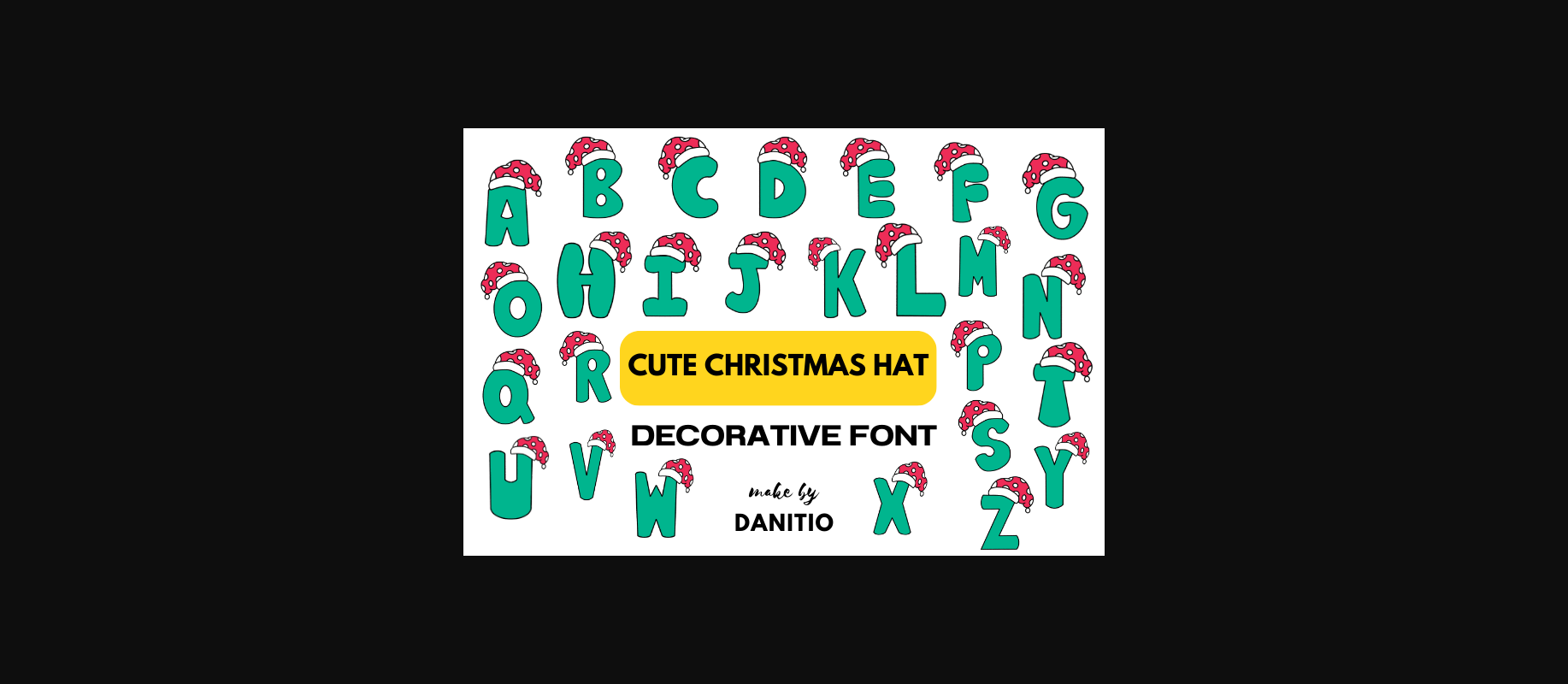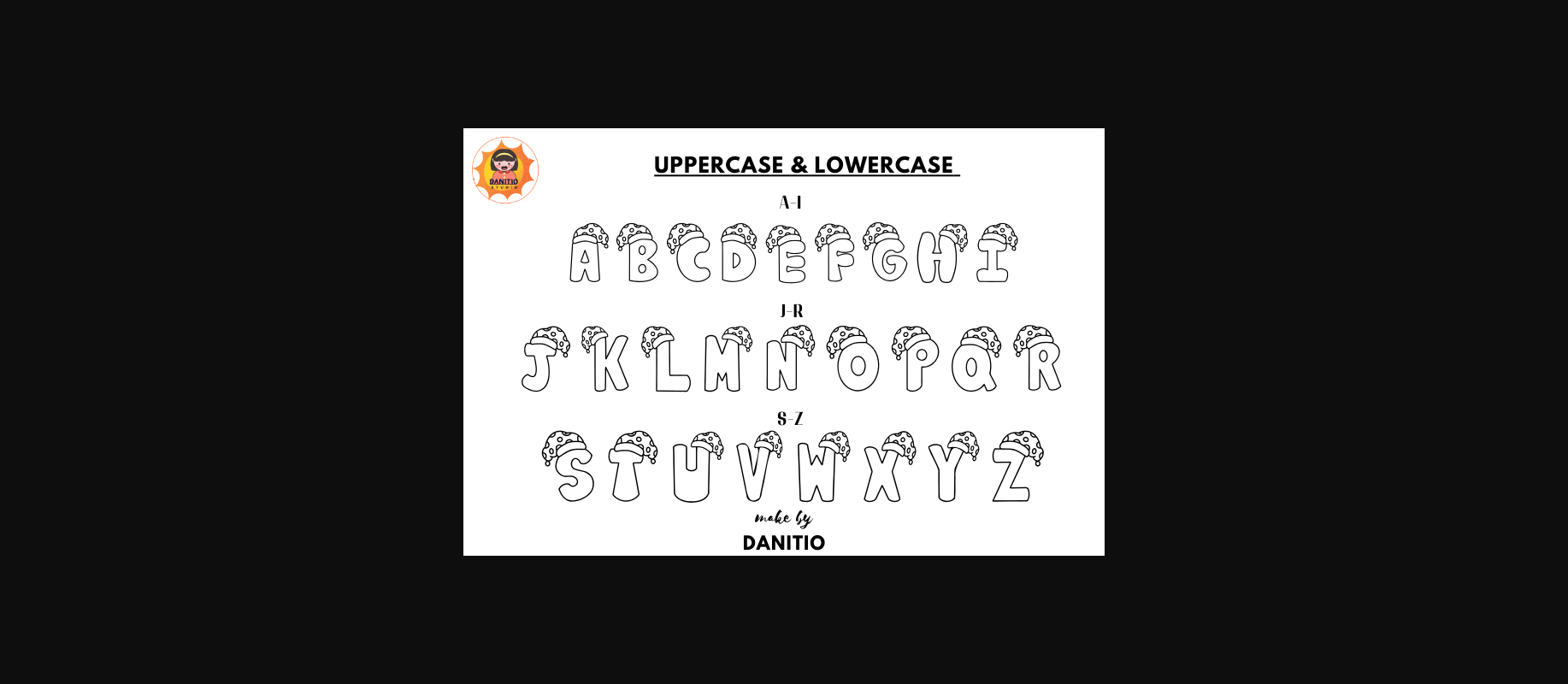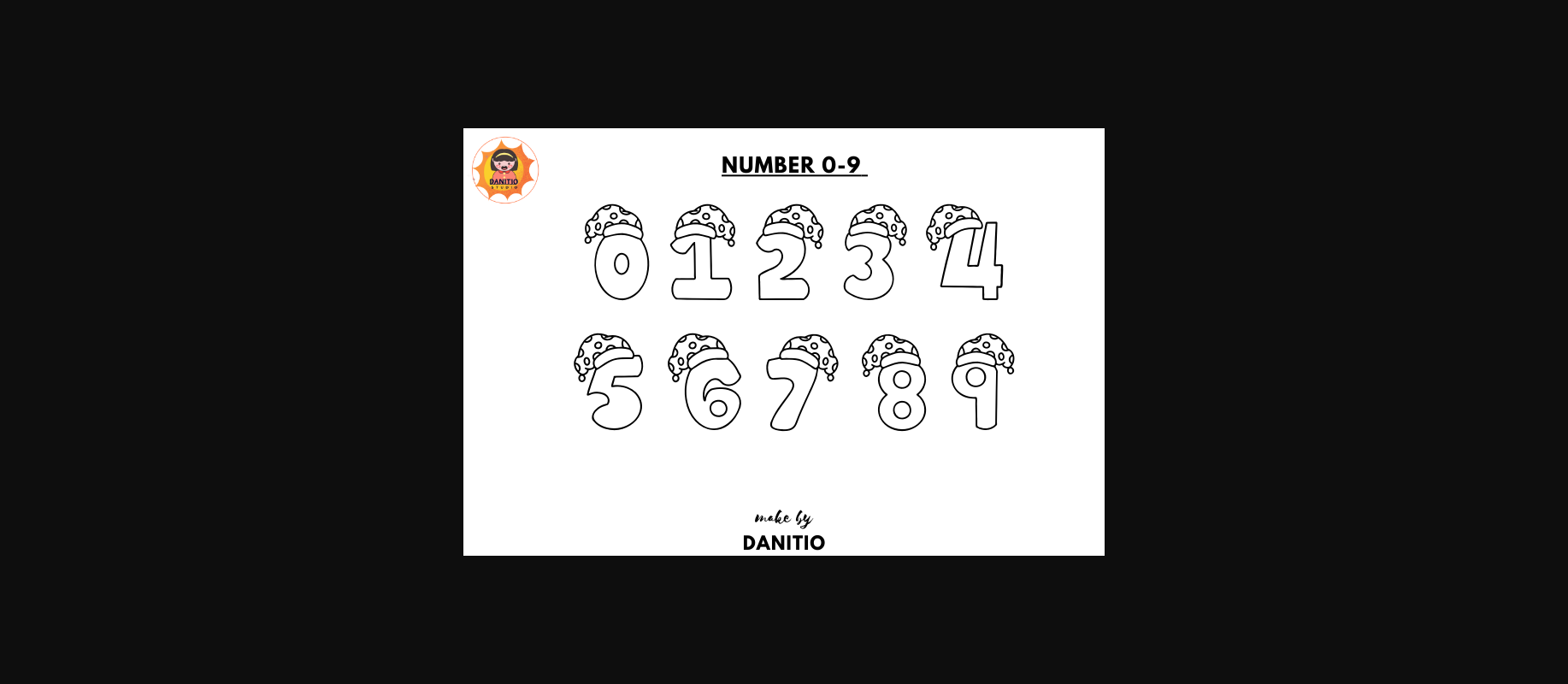
Cute Christmas hat font Decorated with a hat theme with a variety of cuteness You can give your Christmas-themed project a fun and quirky atmosphere. Including special occasions such as birthdays or New Year’s Day. which has a variety of cuteness Perfect for Christmas or any fun and entertaining festival. Spread the joy of the season with this font. And let your creativity shine during this fun time of the year. And I’ve included 36 color PNG images as a bonus.